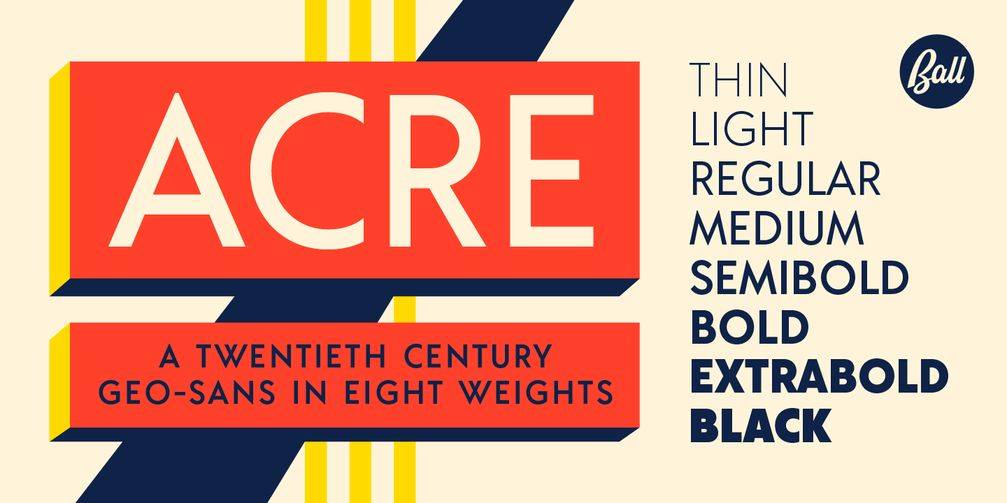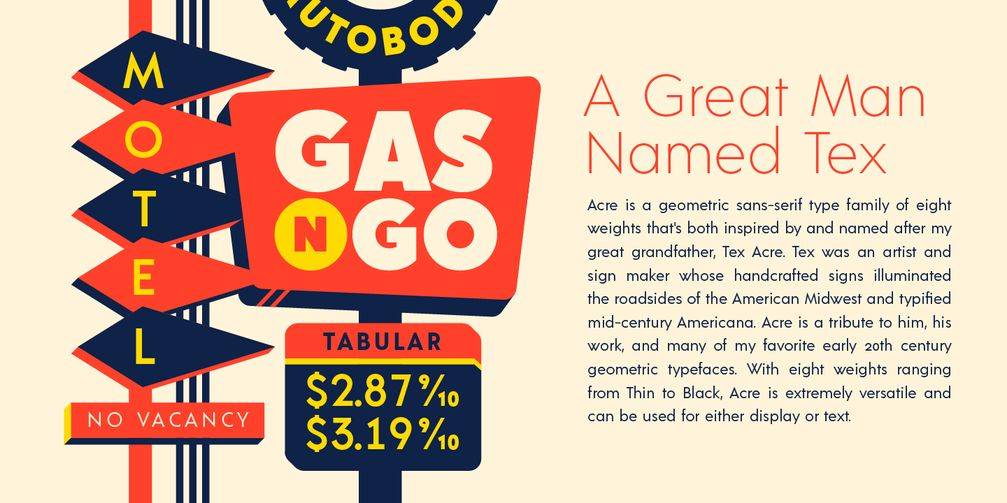
Acre Typeface Weight is a sleek and modern sans serif font characterized by its clean lines and balanced proportions. With a regular weight and moderate contrast, it offers clear legibility and a friendly yet professional feel, making it ideal for branding, editorial design, and digital interfaces. Its geometric shapes and open letterforms create a contemporary and approachable style suitable for a wide range of creative and corporate uses.
Acre Typeface Weight Font
About Acre Typeface Weight Font
| Font family | Acre Typeface Weight Font |
| Designer | Jonathan Ball |